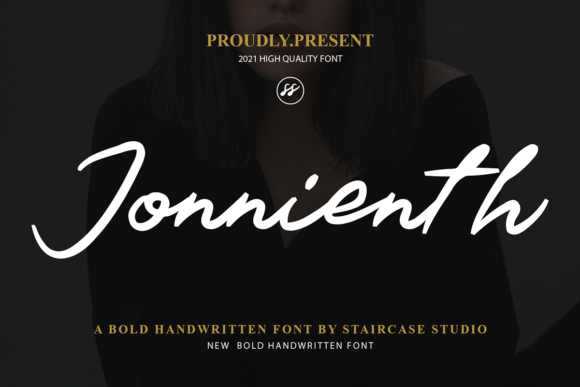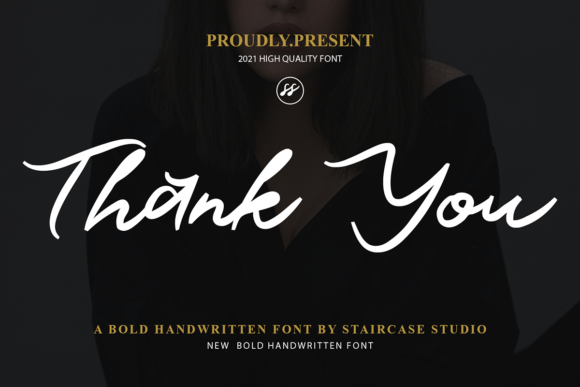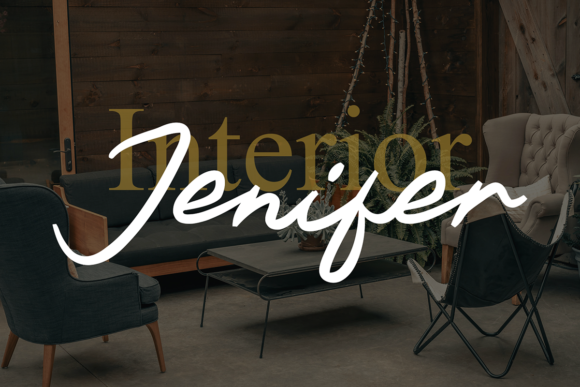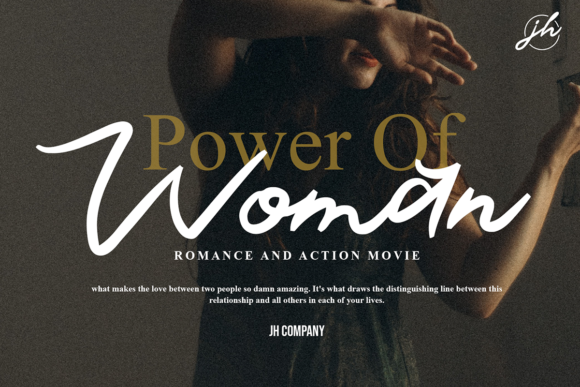
About Jonnienth Font
Jonnienth is a bold handwritten font. A collection of letters and numbers suitable for your projects is also great for logotypes, branding designs, logos, digital lettering arts, t-shirt/apparel, posters, magazines, signs, advertising designs, and so much more.